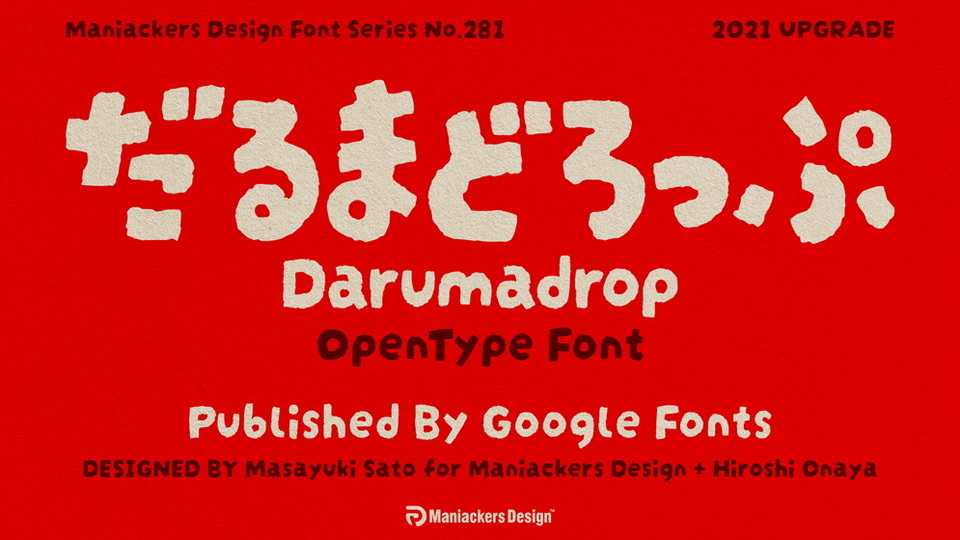
Download Darumadrop font, a flavorful and Japanese cultural handwritten typeface. Darumadrop font is designed with the themes of folk craft, traditional craft, Showa, zen, Japanese culture, etc.
Designer: Maniackers Design